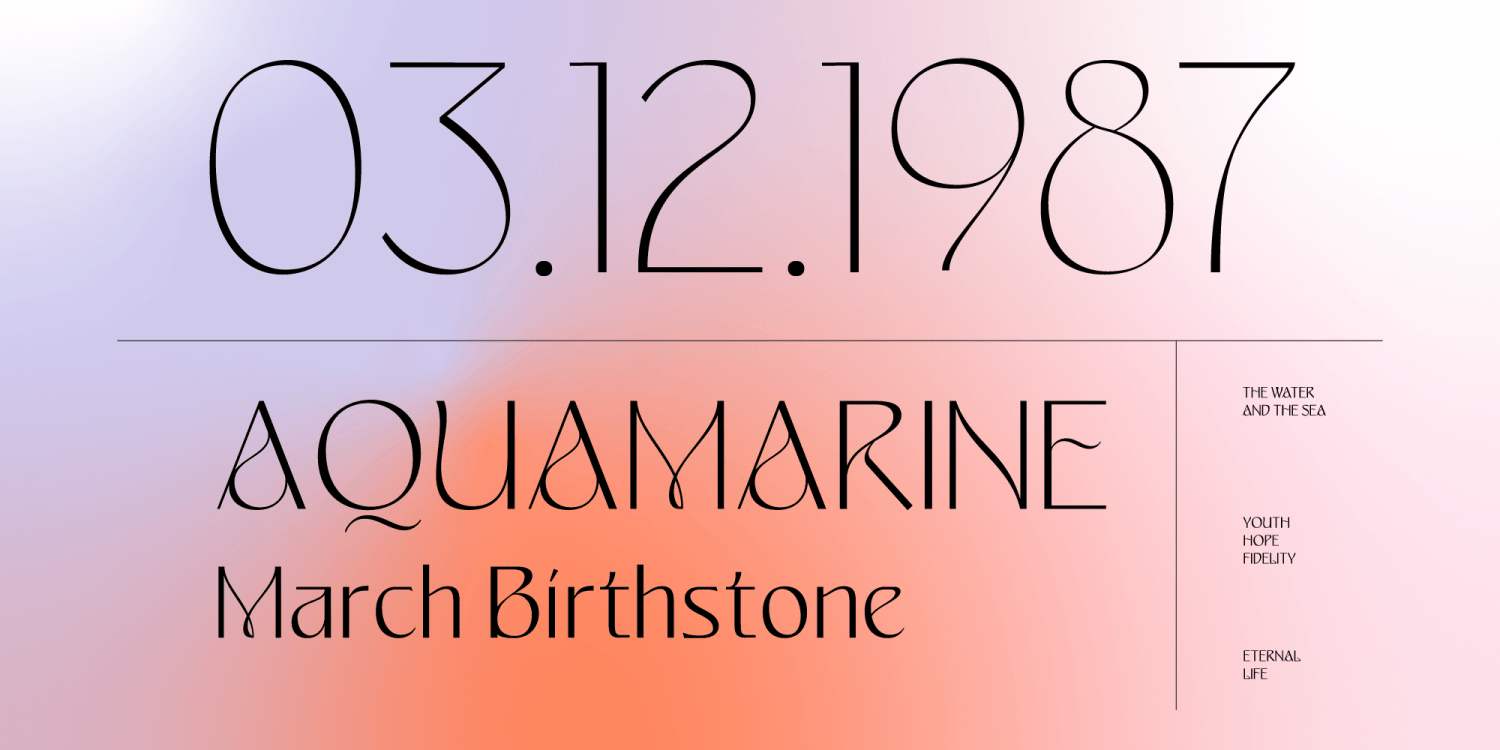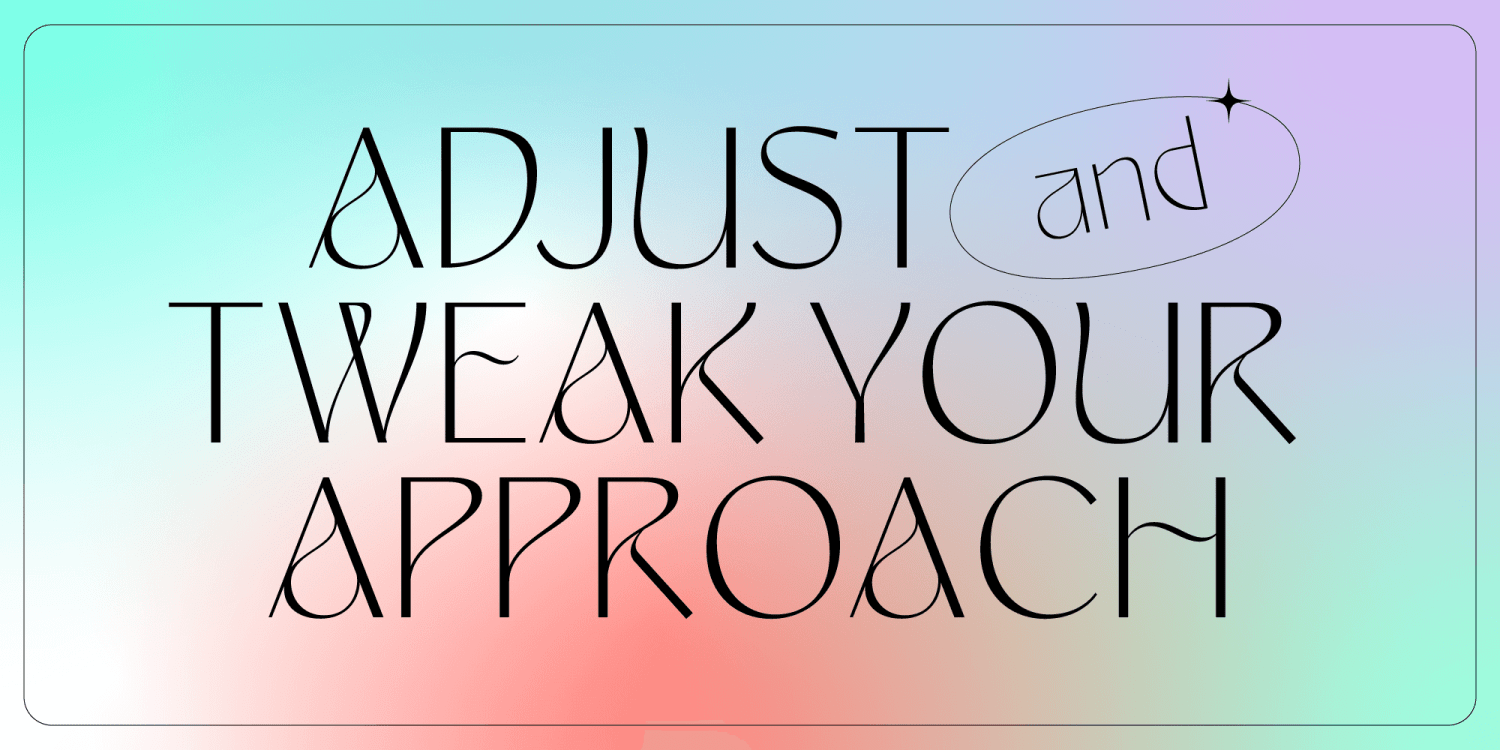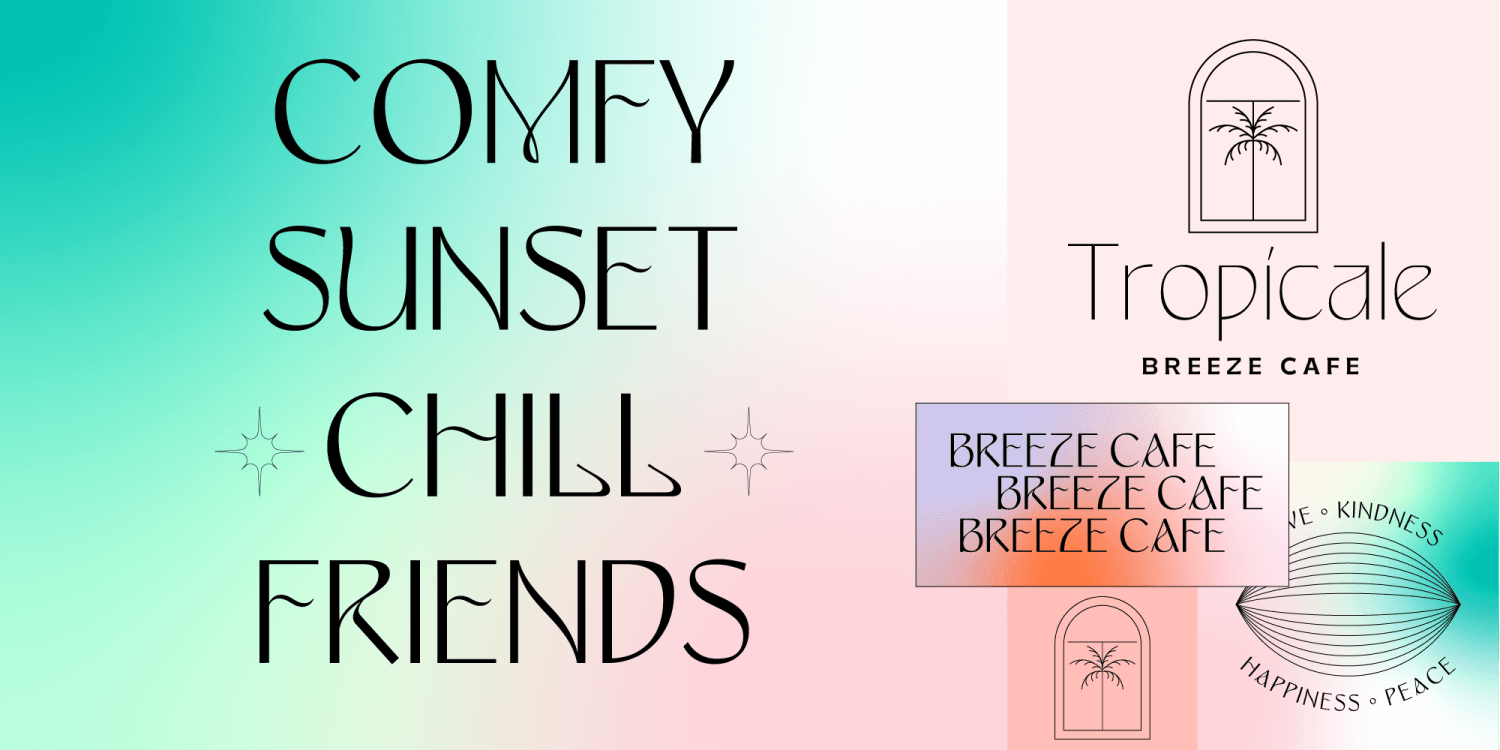
Alvarosa is a beautiful, elegant and thin display font. Incredibly trendy and versatile. Inspired by the trends of minimalist looking display fonts that shown on social media, I've made a uniqueness sans serif by adding the quirky elements on a basic…